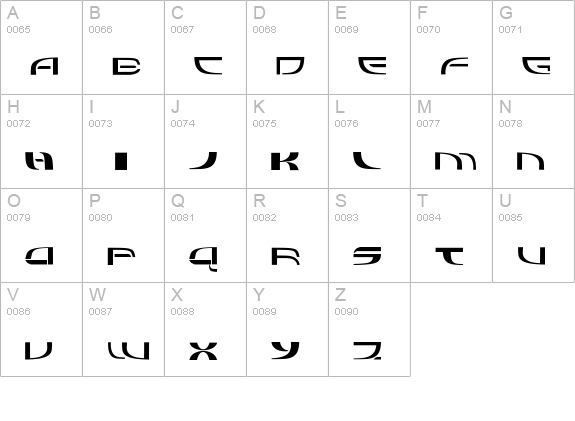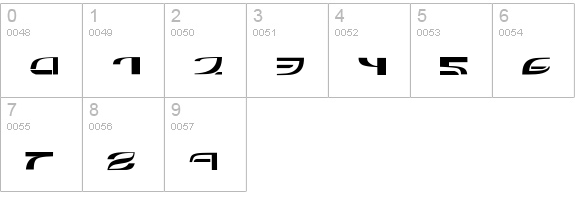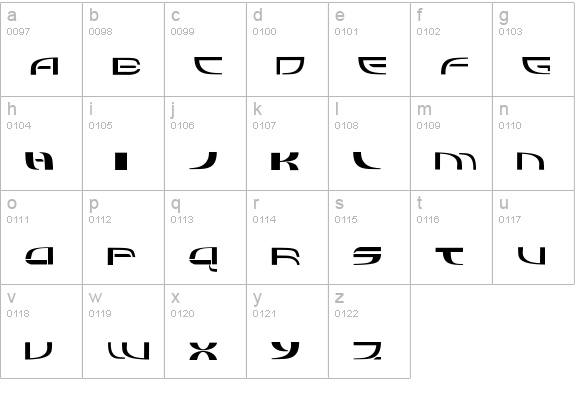
Refluxed Font Details
Refluxed font is a stunning typeface that effortlessly captures attention with its sleek and sophisticated design. Crafted with precision and attention to detail, this font is a perfect blend of modernity and elegance, making it suitable for a wide range of design projects. With its clean lines and balanced proportions, Refluxed font exudes a sense of professionalism and refinement. Its versatile nature allows it to be used in various contexts, whether it's for branding, advertising, editorial, or any other creative endeavor. One of the standout features of Refluxed font is its versatility. It effortlessly adapts to different sizes and styles, ensuring that your message is conveyed effectively and beautifully. Whether you need a bold and impactful headline or a subtle and sophisticated body text, this font has got you covered. What makes Refluxed font even more appealing is the fact that it is freely available to download at FontsMarket.com. This means that you can easily access this remarkable font and elevate your designs without any cost. So, whether you're a professional designer or a passionate hobbyist, you can take advantage of this exceptional font and enhance your creative projects. In conclusion, Refluxed font is a visually striking typeface that combines modernity and elegance effortlessly. Its versatility and availability for free download at FontsMarket.com make it an ideal choice for designers looking to add a touch of sophistication to their work. So why wait? Download Refluxed font today and let your creativity shine.